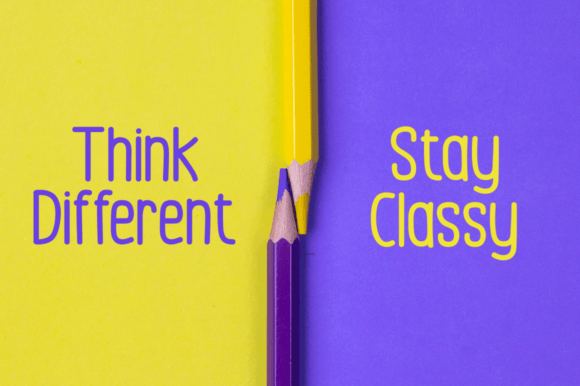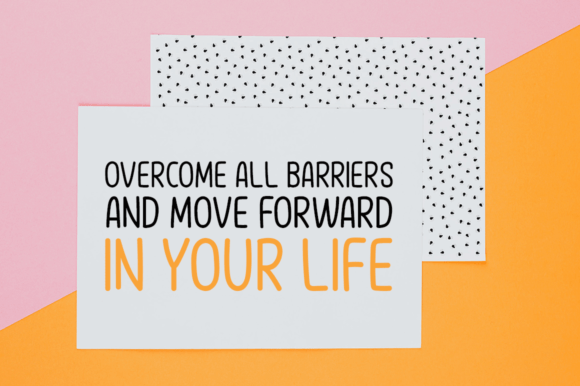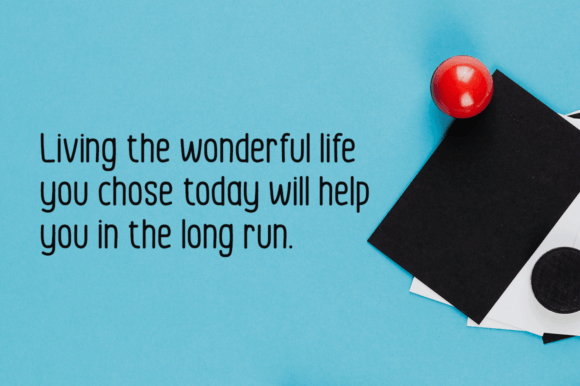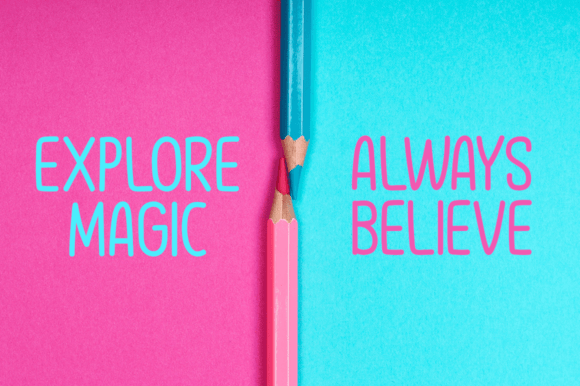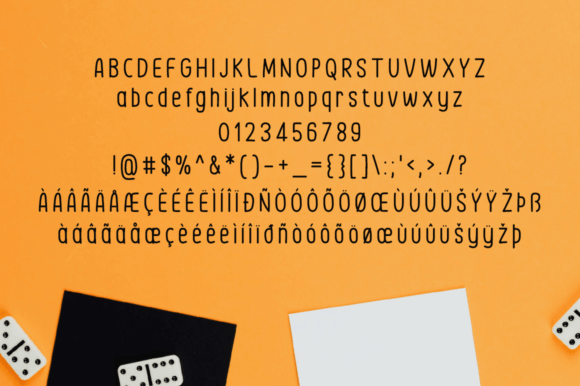
Introduction to Simply Happy Font Font
Fonts play a crucial role in design, and the Simply Happy Font font is a typeface that brings both character and versatility to any project. Whether you’re working on a branding project, a website, or a print design, the Simply Happy Font font offers a unique style that can elevate your work.
Simply Happy is a handwritten typeface that works beautifully.
For stationery, logos, t-shirts, print design, website headers, photo frames, flyers, music album covers, posters, image sliders, and much more Your favorite creative ideas will come to life when you add this typeface to them.
Key Features of Simply Happy Font Font
Why Choose Simply Happy Font Font?
The Simply Happy Font font is more than just a typeface – it’s a design tool that helps you communicate your message with style and clarity. Its unique character set and versatile design make it suitable for a wide range of applications, from elegant invitations to bold headlines.
With its carefully crafted letterforms and balanced proportions, the Simply Happy Font font ensures readability and visual appeal across all mediums.
What makes Simply Happy Font font special?
The Simply Happy Font font stands out with its unique design, exceptional readability, and versatility across various design applications.